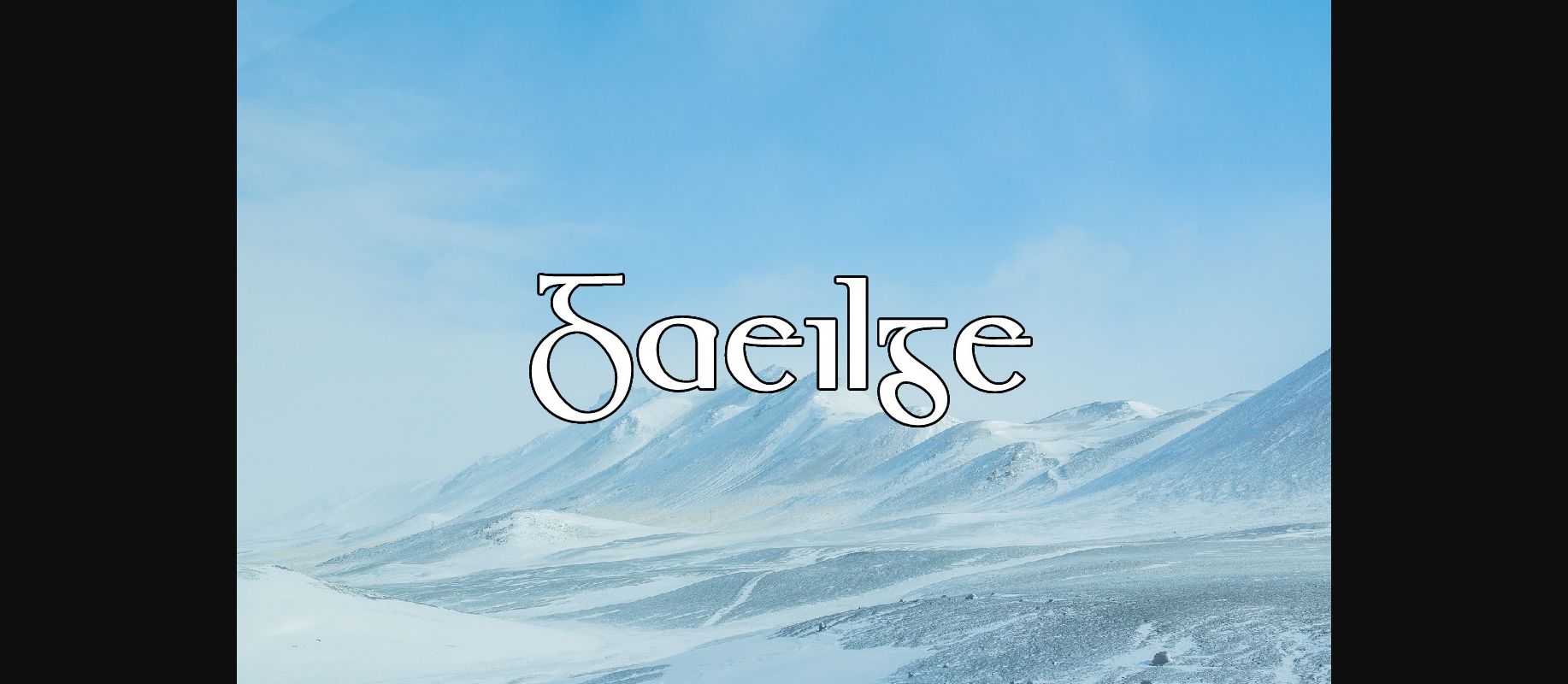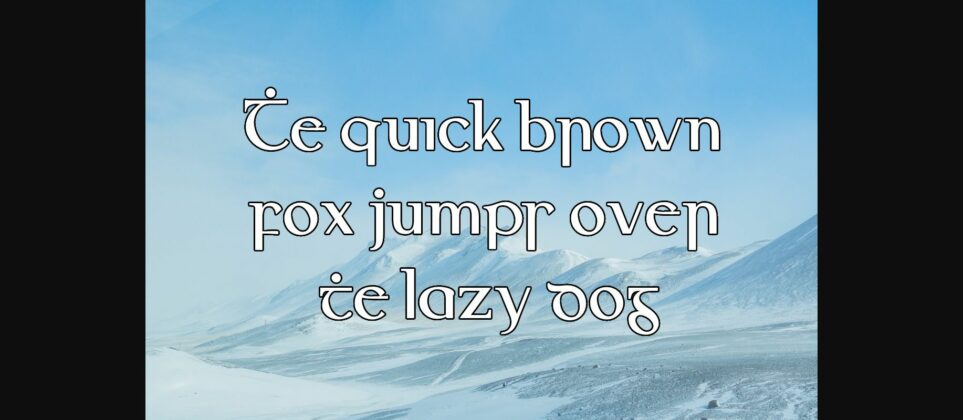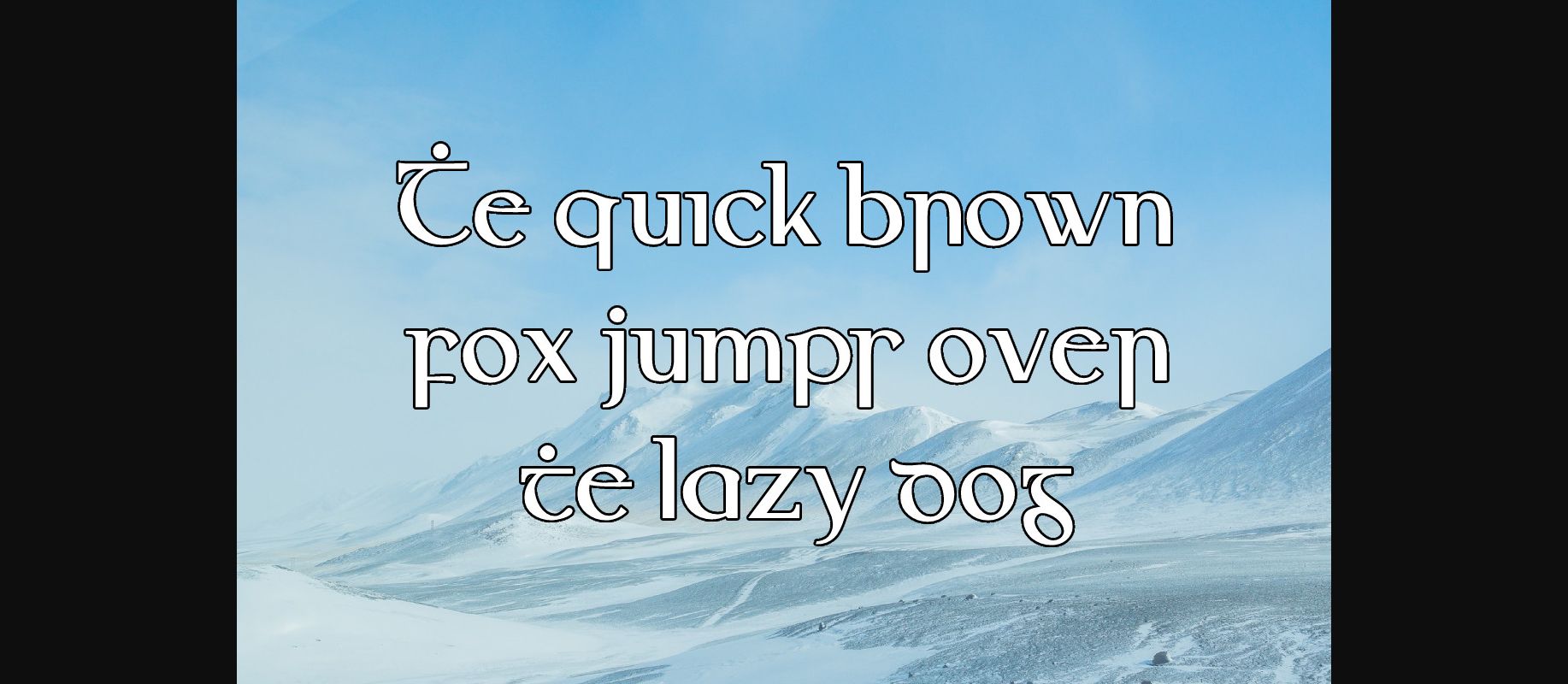
About Gaeilge Font
Gaeilge is a creative and cool serif font. It has unique and well-balanced characters, and as a result, it matches a wide pool of designs. Add it to your most creative ideas, and notice how it makes them come alive!